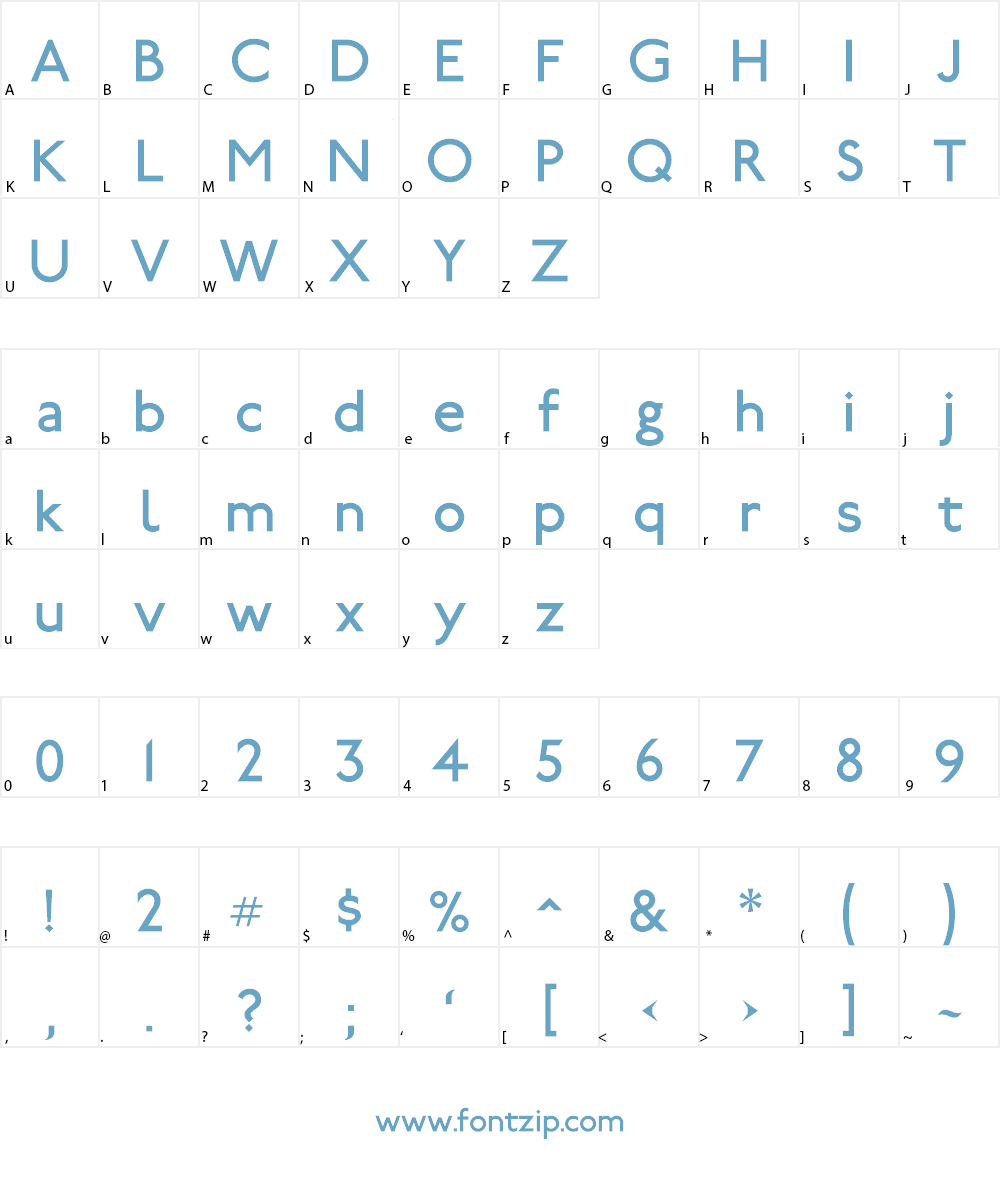
Railway Sans is a previously unpublished work, originally digitised by my late friend and partner, the typographer Justin Howes, in 1994, some seventy-eight years after the first appearance of Johnston's Railway type in 1916. Using an old SPARC station, some bitmap-to-vector software which I'd written which output in ASCII Type 3 font format and a Crosfield drum scanner to initially capture the outlines, these were then converted from bitmaps into vector font data. Justin had wanted to capture and make an experimental font of this version, drawn directly from Johnston's original artwork of 1913-1915 as part of the book he was writing on Edward Johnston and other Johnston-related research, and later revisions and variations which were originally the only characters in the typeface in various samples and working proofs kindly lent by Andrew Johnston.
This version of the original Johnston typeface of 1916, in both TrueType and OpenType format, will work with Macs, Linux and Windows computers and will provide authenticity when recreating Underground signage. This is why I am making this version available for enthusiasts who seek an authentic-looking digital version of the original Underground type. It is not derived from the Banks's and Miles New Johnston Sans (so brilliantly realised by Eiichi Kono, 1979). Nor is it a copy or in any way a facsimile of any existing commercial typeface, such as P22's excellent version, Underground. It is rendered entirely from proofs done by Edward Johnston himself at the time the face was commissioned.